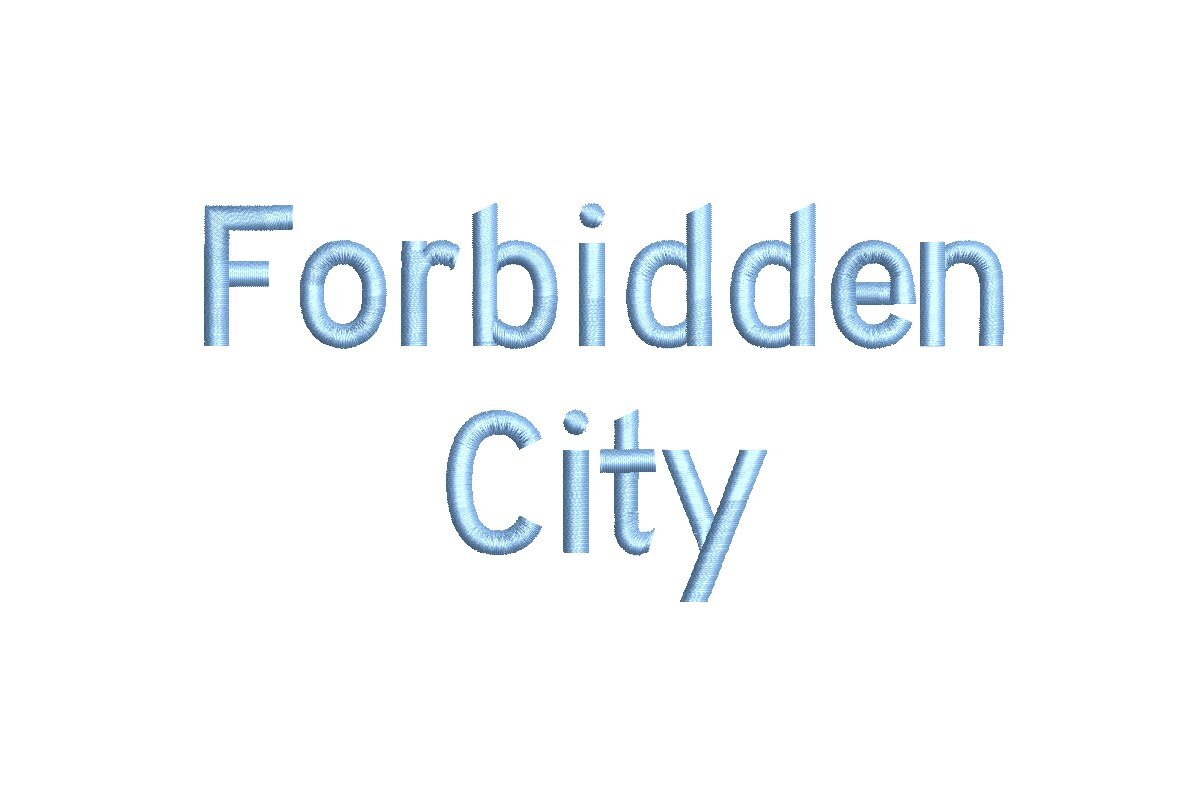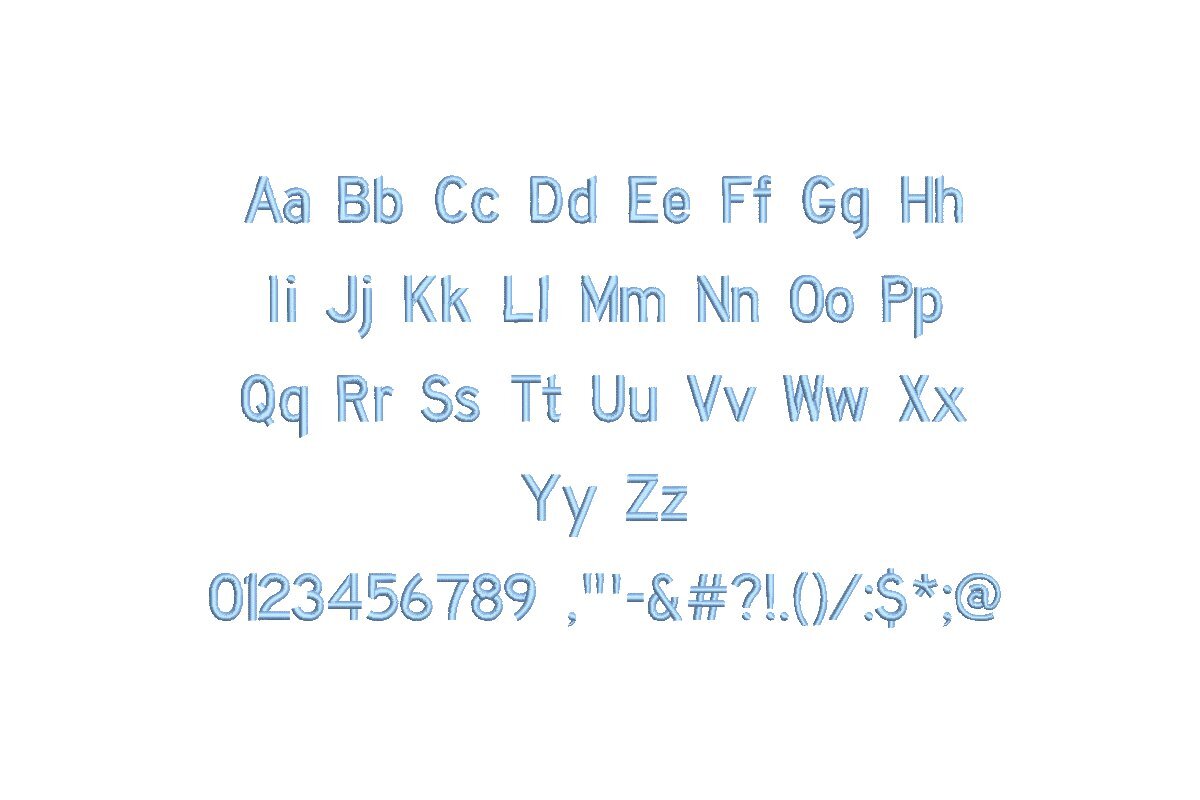
Introducing the Forbidden City ESA font, your key to regal embroidery. Thoughtfully designed for seamless compatibility with Wilcom Studio e4.5.6 and Hatch 3 versions and up, this font seamlessly integrates into your digitizing process. Forbidden City ESA offers impeccable precision and versatility, ideal for monograms, ornate text, and intricate designs. Elevate your embroidery projects with its exceptional quality and timeless elegance. Craft professional and captivating designs effortlessly on various fabrics and items. Don't miss the opportunity to enhance your embroidery journey. Choose the Forbidden City ESA font today and unlock a world of creativity and regal precision with every stitch, setting new standards for your embroidery excellence.